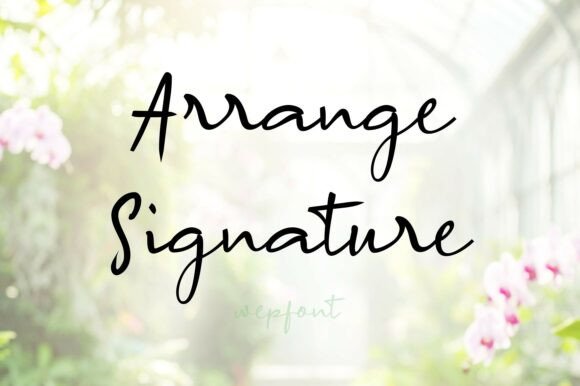
Introducing Arrange Signature: The Elegant Script Font for Creative Projects
Have you ever been working on a design project, pouring your heart and soul into every detail, only to get stuck on one thing: the font? I recall a recent experience where I was tasked with creating a luxury branding campaign for a high-end perfume label, and I just couldn’t find the right font to capture the essence of the brand. That’s when I discovered Arrange Signature, a beautiful script font that instantly elevated my design. In this article, I’ll share my experience with Arrange Signature, its features, and how to make the most of it in your creative projects.
A Personal Design Moment: Finding the Perfect Font
I was working on a project for a client who wanted a sophisticated yet approachable message for their luxury perfume label, ‘Fragrant’. The goal was to convey elegance, refinement, and a connection to nature. As I scrolled through font after font, I couldn’t help but feel like something was missing. That was until I stumbled upon Arrange Signature. Its fluid, connected letterforms and natural flow instantly caught my attention. I knew I had found the perfect fit.
An Honest Review of Arrange Signature
- ✨ Elegant and refined design, perfect for luxury branding and high-end projects
- ✅ Comprehensive set of uppercase and lowercase letters, numerals, and standard punctuation
- ✅ Fluid, connected letterforms with a natural, unforced flow
- ✨ Meticulously designed to maintain its harmonious and artistic quality
⚠️ One thing to note is that Arrange Signature is a script font, which can sometimes make it challenging to read in smaller sizes. However, this is a minor trade-off for its unique and elegant design.
🤔 Another thing to consider is that the font may not be suitable for very formal or traditional projects, as it has a slightly organic and handmade feel.
The Backstory of Arrange Signature
Arrange Signature was designed with the intention of capturing the delicate beauty of a personalized handwritten signature. The designer aimed to create a font that would evoke a sense of refined artistry and organic charm, perfect for conveying a sophisticated yet approachable message. The result is a font that’s both elegant and approachable, making it perfect for a wide range of creative projects.
Q: What is Arrange Signature?
A: Arrange Signature is a script font that features fluid, connected letterforms with a natural, unforced flow. It’s perfect for creative projects that require a touch of elegance and refinement.
Q: Is Arrange Signature suitable for body text?
A: While Arrange Signature is a beautiful font, it’s best suited for headlines and titles. Its elegant design and connected letterforms can make it challenging to read in smaller sizes.
Q: Does Arrange Signature include OpenType features?
A: Yes, Arrange Signature includes a range of OpenType features, such as stylistic alternates, ligatures, and glyphs. These features allow you to add more personality and variety to your design.